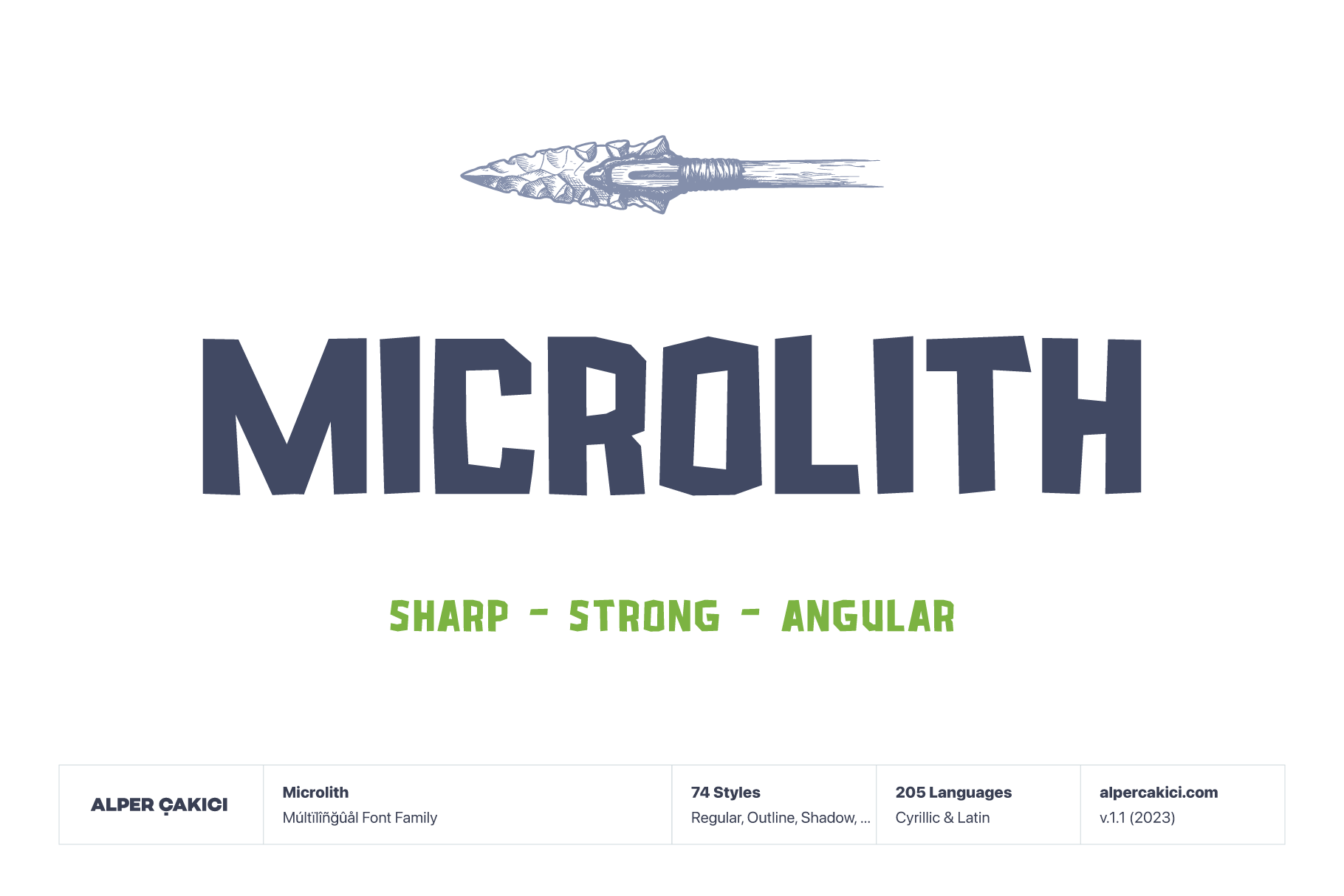
Microlith - Irregular Typeface
Microlith is an expressive experimental display typeface built around irregular geometry, sharp cuts, uneven proportions, and a deliberately constructed sense of visual tension. Its letterforms feel as though they have been carved, fractured, pressed, and reassembled into a bold typographic system—giving the family a distinctive rugged character without losing its strong display presence.
The core design combines angular silhouettes, faceted corners, asymmetrical details, compact forms, and unexpected geometric interruptions. Rather than following conventional geometric construction, Microlith embraces controlled irregularity: individual characters can feel slightly distorted, cut, or shifted, creating a raw and energetic rhythm across words and headlines.
The family includes 74 styles, expanding the core design into a broad collection of expressive treatments. Alongside the Regular and Italic styles are variations such as Rough, Rounded, Crumple, Crankle, Cutout, Outline, Shadow, Inline, Letterpress, Pressed, Rustic, Sketch, Scatter, Spotty, Polka, Pentadot, Cluster, Dragee, and Calligraphic. These variations make Microlith suitable for projects ranging from clean experimental typography to more distressed, tactile, decorative, and handmade applications.
Despite its unconventional construction, the typeface maintains a strong visual presence at display sizes. The bold shapes and distinctive counters make it particularly effective for posters, headlines, album artwork, branding, logos, packaging, editorial graphics, advertising, titles, merchandise, and other attention-grabbing applications.
Microlith supports Latin and Cyrillic, making its extensive style collection suitable for multilingual creative work. With 480 glyphs and a large range of stylistic treatments, the family provides designers with substantial flexibility for creating cohesive visual identities while introducing variation from one application to another.
The family is designed for both digital and print applications, with its strong silhouettes and high-impact details making it especially effective when typography needs to function as a graphic element rather than simply convey information.
From sharply constructed headlines to rough, pressed, outlined, shadowed, scattered, or cutout compositions, Microlith offers a deliberately imperfect alternative to conventional display typefaces. It is a type family for designers looking for typography that feels constructed, physical, irregular, bold, and unmistakably expressive.